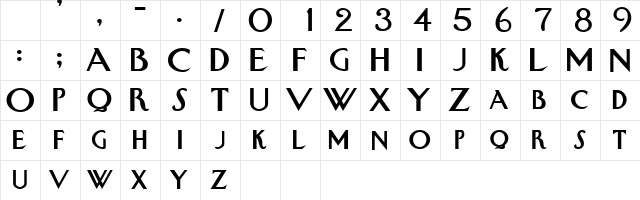
Swan Bold
Design Context for Swan Typeface
Swan takes a measured approach to typography — its balanced proportions and neutral character make it a reliable workhorse for both digital and print work. Its bold stroke weight gives it real presence on the page.